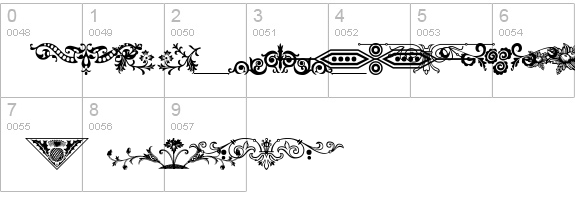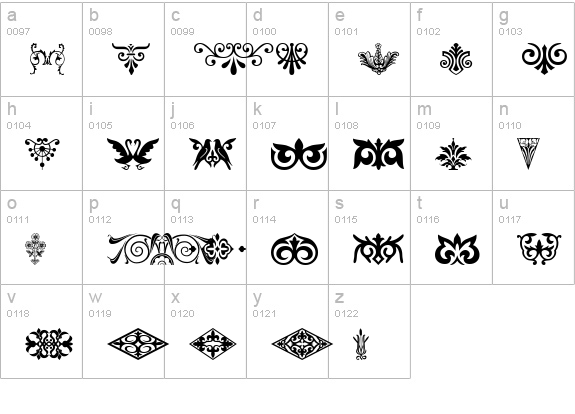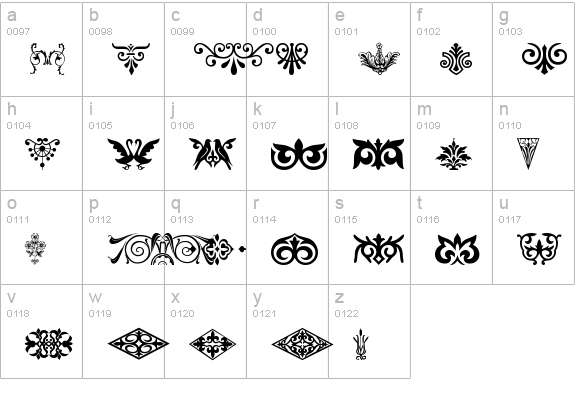
Ornamental Decoration II Font Details
Ornamental Decoration II font is a stunning and elegant typeface that exudes sophistication and charm. With intricate details and ornate flourishes, this font is perfect for adding a touch of luxury to your projects. Whether you are designing invitations, greeting cards, or creating decorative elements for your branding, Ornamental Decoration II font is sure to make a statement. What sets Ornamental Decoration II font apart is its versatility and timeless appeal. The classic design and unique features of this font make it a standout choice for anyone looking to elevate their designs. With its graceful curves and intricate detailing, Ornamental Decoration II font adds a touch of elegance to any project. Best of all, Ornamental Decoration II font is available for free download at FontsMarket.com. This means you can easily access this beautiful typeface and incorporate it into your designs without any hassle. Don't miss out on the opportunity to enhance your projects with the exquisite Ornamental Decoration II font. Download it today and let your creativity shine!